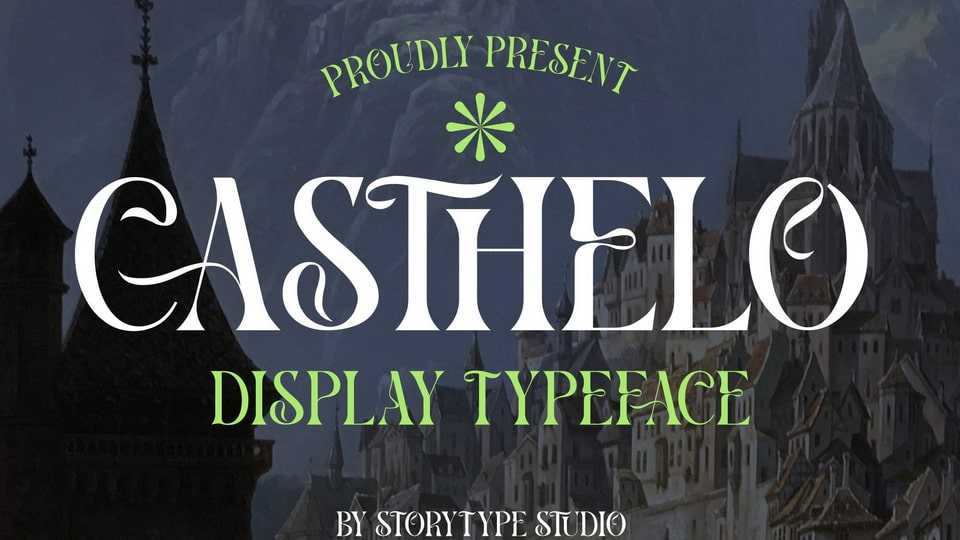
Download Casthelo font, a decorative serif typeface that has own unique style and modern look. Casthelo font is perfect for an elegant & luxury logo, book or movie title design, fashion brand, magazine, clothes, lettering, quotes, and so much more.